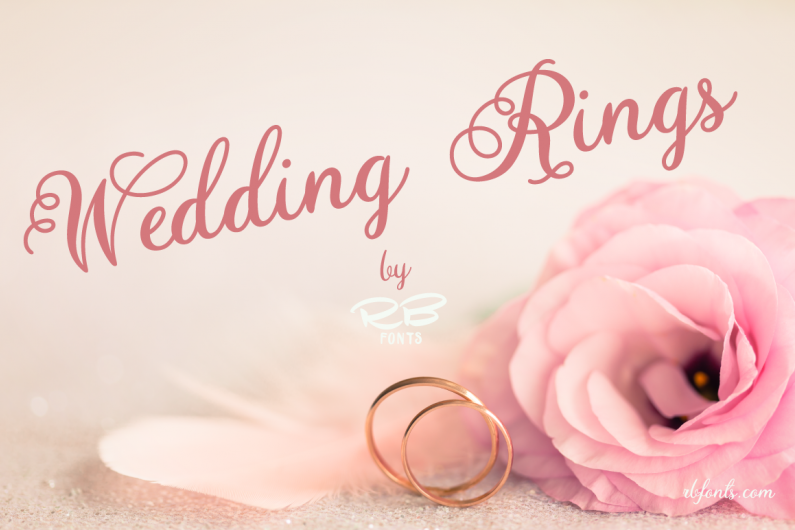
Wedding Rings font
Wedding Rings is a cursive script font with ribbon swashes on the uppercase letters. Nice choice for your creative projects especially for wedding invitations or other elegant but not too formal celebration related* logos, * printed quotes, * invitations, * cards,* Instagram posts.Happy creating and have fun!Fonts are provided in TTF & OTF formats.Wedding Rings is a cursive script font with ribbon swashes on the uppercase letters. Nice choice for your creative projects especially for wedding invitations or other elegant but not too formal celebration related.